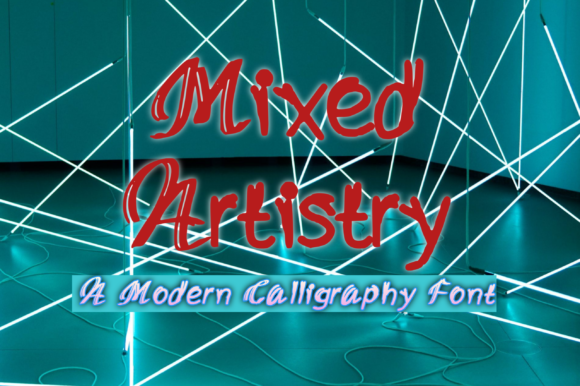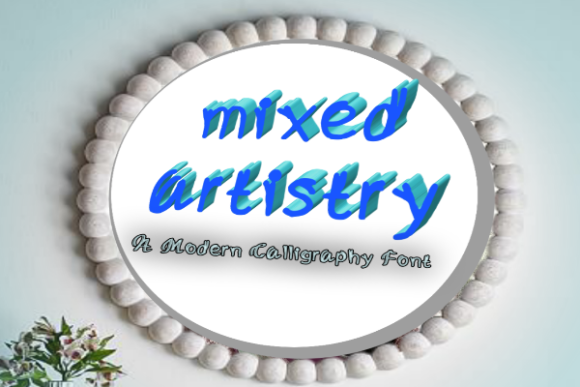
Mixed Artistry Font
About Mixed Artistry Font
Mixed Artistry is a unique handwritten font that adds a touch of quirkiness and creativity to your designs. With its distinctive and unconventional style, this font stands out and brings a sense of artistic flair to any project.
The versatility of Mixed Artistry allows it to be used in a wide variety of contexts. Whether you’re designing posters, book covers, logos, or social media graphics, this font adds a playful and eye-catching element that grabs attention. Its unconventional letterforms and irregular strokes make it an ideal choice for projects that aim to break the norm and embrace a more eclectic and artistic aesthetic.
Mixed Artistry shines particularly well in projects that celebrate individuality and creativity. It can be used to convey a sense of personal expression and originality, making it perfect for designs related to art, fashion, music, or any other creative field. Its quirky and unconventional style adds a touch of personality to your text, making it memorable and distinct.
Furthermore, Mixed Artistry is versatile enough to adapt to various design themes and moods. Whether you’re going for a whimsical and playful look or a more edgy and bold atmosphere, this font can be adjusted to fit your desired style. You can experiment with different sizes, colors, and effects to further enhance its visual impact.
The unique charm of Mixed Artistry also makes it a great choice for craft projects and handmade designs. From greeting cards and invitations to scrapbooking and journaling, this font adds a touch of artistic flair that elevates your creations and sets them apart from the ordinary.
In summary, Mixed Artistry is a unique handwritten font that brings a quirky and artistic touch to your designs. Its versatility allows it to be used in various contexts, while its unconventional style adds a sense of individuality and creativity. So let your imagination run wild and explore the endless possibilities that Mixed Artistry offers to create visually captivating and memorable designs.